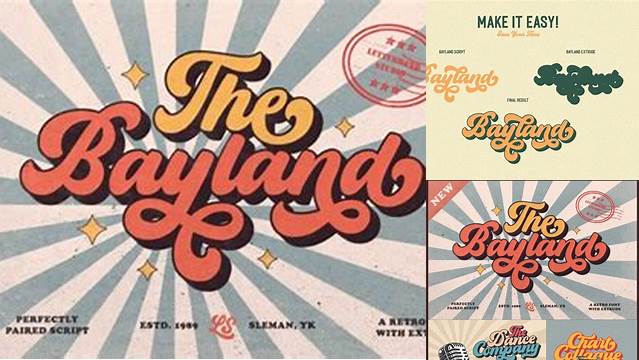
Hey guys! Are you looking to add some vintage flair to your designs? The Bayland retro font might just be what you need! In this article, we're diving deep into everything you need to know about this cool font, including where to snag a free download and how to use it effectively. Get ready to level up your typography game!
1. What is the Bayland Retro Font?
The Bayland retro font is a typeface inspired by vintage design aesthetics, typically characterized by rounded edges, bold lines, and a nostalgic feel. It brings back the charm of the mid-20th century, making it perfect for projects that aim to evoke a sense of nostalgia or retro cool. This font often includes stylistic alternates and ligatures that enhance its vintage appeal, allowing designers to create unique and eye-catching compositions. Whether you're working on posters, logos, or digital designs, the Bayland retro font can add that special touch that makes your work stand out. The key is to understand its characteristics and apply it appropriately to achieve the desired vintage effect. Keep an eye out for variations in weight and style that can offer even more versatility in your design toolkit. The font embodies the spirit of a bygone era, making it a valuable asset for anyone looking to capture that retro vibe in their projects.
2. Key Features of the Bayland Retro Font
The Bayland retro font comes packed with features that make it a designer's dream. First off, it often includes multiple weights, from light to bold, giving you flexibility in your designs. You'll also find stylistic alternates that allow you to switch up the look of certain characters for added flair. Ligatures are another common feature, combining two or more characters into a single, more aesthetically pleasing glyph. The font typically supports a wide range of characters, including uppercase and lowercase letters, numbers, and punctuation, making it suitable for various applications. Furthermore, many Bayland retro fonts include multilingual support, ensuring that you can use them in projects that require different languages. The overall design emphasizes readability while maintaining a distinct retro vibe, making it a versatile choice for both headings and body text. Be sure to check the specific features of the font you download, as they can vary depending on the designer.
5. Using Bayland Retro Font in Graphic Design Projects
Using the Bayland retro font in your graphic design projects can add a unique touch that grabs attention. This font is perfect for creating eye-catching logos, posters, and website headers. To effectively use it, consider the overall aesthetic of your project. The Bayland retro font pairs well with vintage-inspired color palettes and graphics. Experiment with different font weights and styles to achieve the desired effect. In logos, use it sparingly to maintain clarity and readability. For posters and headers, feel free to get creative with larger sizes and more decorative elements. Always ensure that the font complements the other design elements and enhances the overall message. Whether you're working on a branding project or a marketing campaign, the Bayland retro font can help you create a memorable and impactful design. The key is to balance its retro charm with modern design principles.
6. Bayland Retro Font for Logo Design
When it comes to logo design, the Bayland retro font can be a game-changer. Its vintage appeal can give your logo a unique and memorable look. However, it's important to use it strategically. Start by considering the overall brand identity. Does the retro aesthetic align with the brand's values and target audience? If so, the Bayland retro font can be a great choice. Keep the logo simple and clean, focusing on readability. Use the font sparingly, perhaps combining it with a more modern sans-serif font for balance. Experiment with different font weights and styles to find the perfect fit. Pay attention to kerning and letter spacing to ensure a polished and professional look. Remember, a logo is a visual representation of the brand, so it needs to be both aesthetically pleasing and functional. The Bayland retro font, when used correctly, can help you create a logo that stands out and leaves a lasting impression.
7. Bayland Retro Font for Website Design
Incorporating the Bayland retro font into your website design can create a distinctive and engaging user experience. Its vintage charm can add character and personality to your site, making it stand out from the crowd. Use it strategically in headings, banners, and call-to-action buttons to draw attention and create a focal point. However, be mindful of readability. Avoid using the Bayland retro font for large blocks of body text, as its decorative style can make it difficult to read. Pair it with a clean and simple sans-serif font for the main content to ensure optimal readability. Consider the overall color scheme and design elements of your website. The Bayland retro font works well with vintage-inspired palettes and graphics. Optimize the font for web use by using web fonts or converting it to a web-friendly format. Test the font on different devices and browsers to ensure it displays correctly. With careful planning and execution, the Bayland retro font can elevate your website design and create a memorable online presence.
8. Bayland Retro Font for Print Materials
Using the Bayland retro font in print materials can bring a touch of nostalgia and elegance to your designs. Whether you're creating posters, flyers, brochures, or business cards, this font can add a unique flair. When designing for print, ensure that the font is legible at the intended size. Choose a font weight that is appropriate for the application. For example, a bold weight might work well for headlines, while a lighter weight might be better for body text. Pay attention to the color palette and paper stock. The Bayland retro font pairs well with vintage-inspired colors and textures. Consider using special printing techniques, such as letterpress or embossing, to enhance the tactile feel of the print materials. Always proofread your designs carefully before sending them to print to avoid any errors. The Bayland retro font, when used thoughtfully, can help you create print materials that are both visually appealing and effective in communicating your message.
9. Pairing Bayland Retro Font with Other Fonts
Pairing the Bayland retro font with other fonts can create a harmonious and visually appealing design. The key is to find fonts that complement its retro aesthetic without overpowering it. A classic combination is to pair the Bayland retro font with a clean and modern sans-serif font. This creates a balance between the vintage charm of the Bayland retro font and the contemporary feel of the sans-serif font. Use the Bayland retro font for headings and titles to draw attention, and use the sans-serif font for body text to ensure readability. Another option is to pair it with a simple serif font for a more traditional look. Experiment with different font weights and styles to find the perfect combination. Consider the overall tone and message of your design when choosing fonts. The right font pairing can elevate your design and create a cohesive and professional look. Don't be afraid to experiment and try new combinations, but always prioritize readability and visual harmony.
When choosing an alternative, consider the specific characteristics of the Bayland retro font that you like. Are you drawn to its rounded edges, bold lines, or decorative elements? Look for fonts that share similar features. Experiment with different fonts and combinations to find the perfect fit for your project. Remember, the goal is to create a design that is both visually appealing and effective in communicating your message. With so many great fonts available, you're sure to find the perfect alternative to the Bayland retro font.